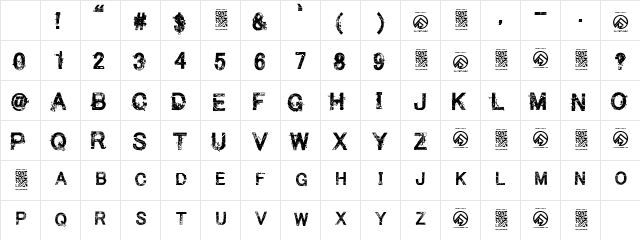
Make them SuffeR is a composed and adaptable typeface that performs quietly and consistently across a wide range of design contexts.
Pro Tip: Use Make them SuffeR in both headline and body roles to test its range before committing to a single application.